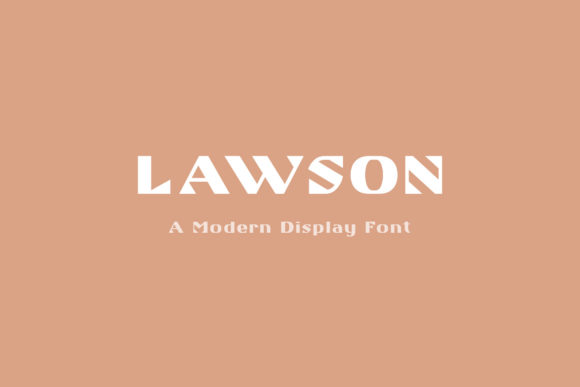
Introducing the Lawson Font, a display font that makes a bold statement with its cool and thick letterforms. This font is the epitome of sophistication and style, making it the perfect choice for creating stunning posters, flyers, prints, and other marketing materials that demand attention.
With its distinctive lines and eye-catching presence, the Lawson Font is sure to leave a lasting impression on your audience. The font's thick, bold strokes exude a sense of strength and confidence, while its carefully crafted curves add a touch of elegance and grace to any design.
Step into a world of creativity with the Lawson Font, where your designs will take center stage. Whether you're crafting a captivating poster for an upcoming event, creating a flyer to promote your latest product or service, or designing a print that reflects your unique style, the Lawson Font will elevate your work to new heights.
The Lawson Font's versatility knows no bounds, making it the perfect choice for a wide range of design projects. Unleash your creativity and let the font's bold and captivating characters bring your designs to life.
Don't settle for ordinary fonts that blend into the background. Elevate your designs with the Lawson Font and watch as they transform into visually captivating masterpieces. Make a statement, express your creativity, and leave your audience in awe with every design you create.
Join the ranks of creative professionals who have discovered the power of the Lawson Font to transform their designs into unforgettable works of art. Experience the endless possibilities and let the Lawson Font become your trusted companion in the world of design.